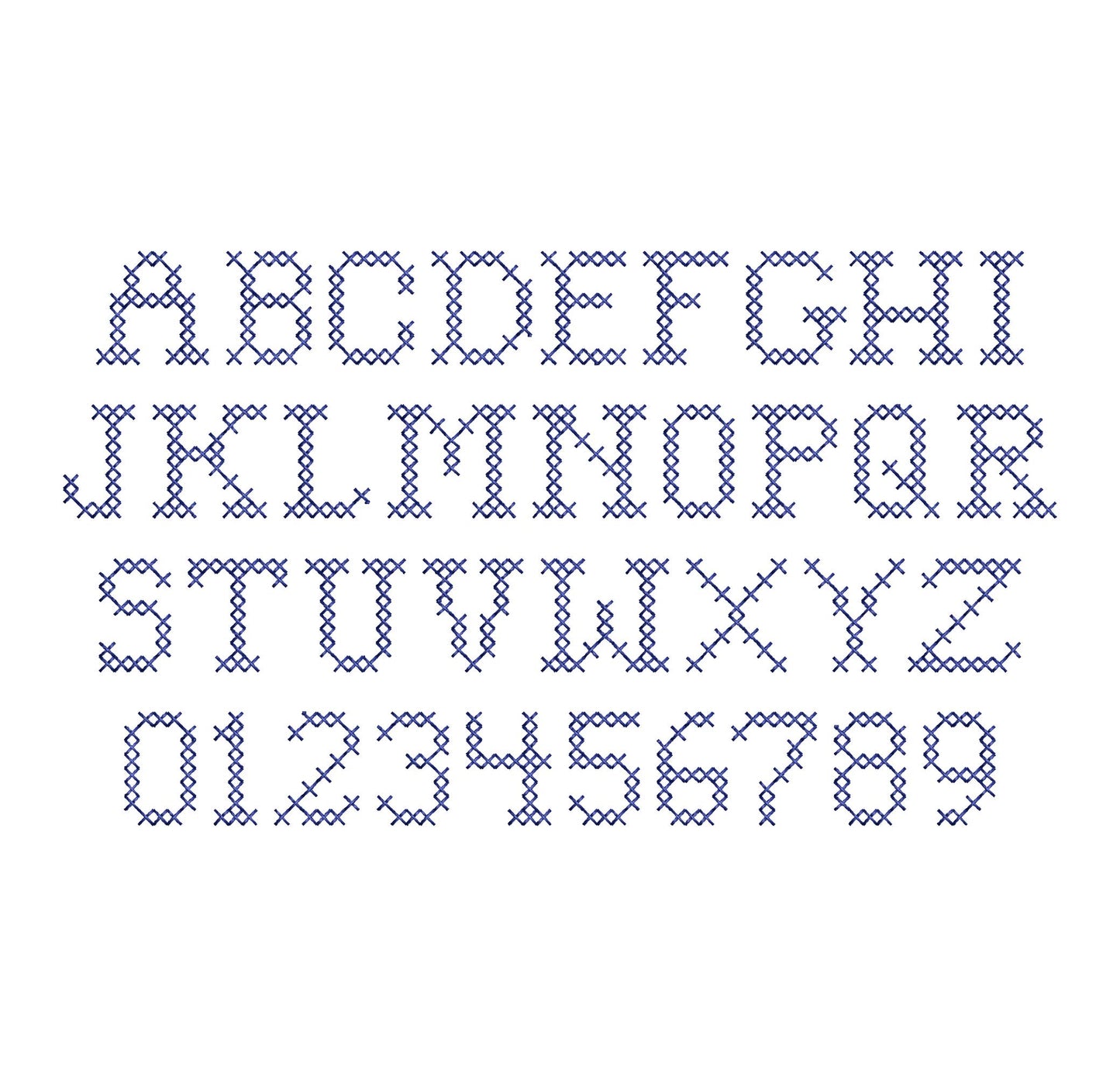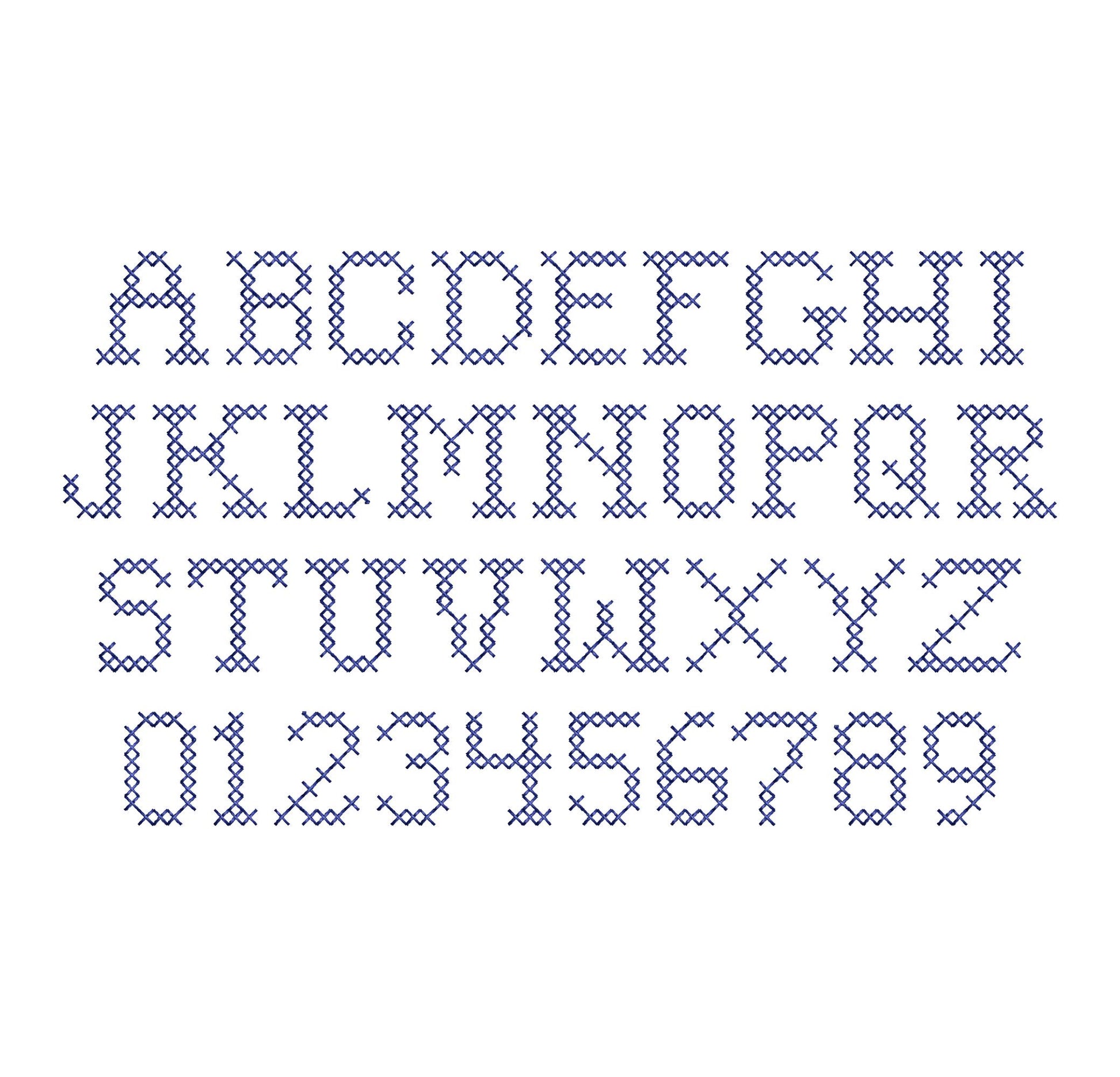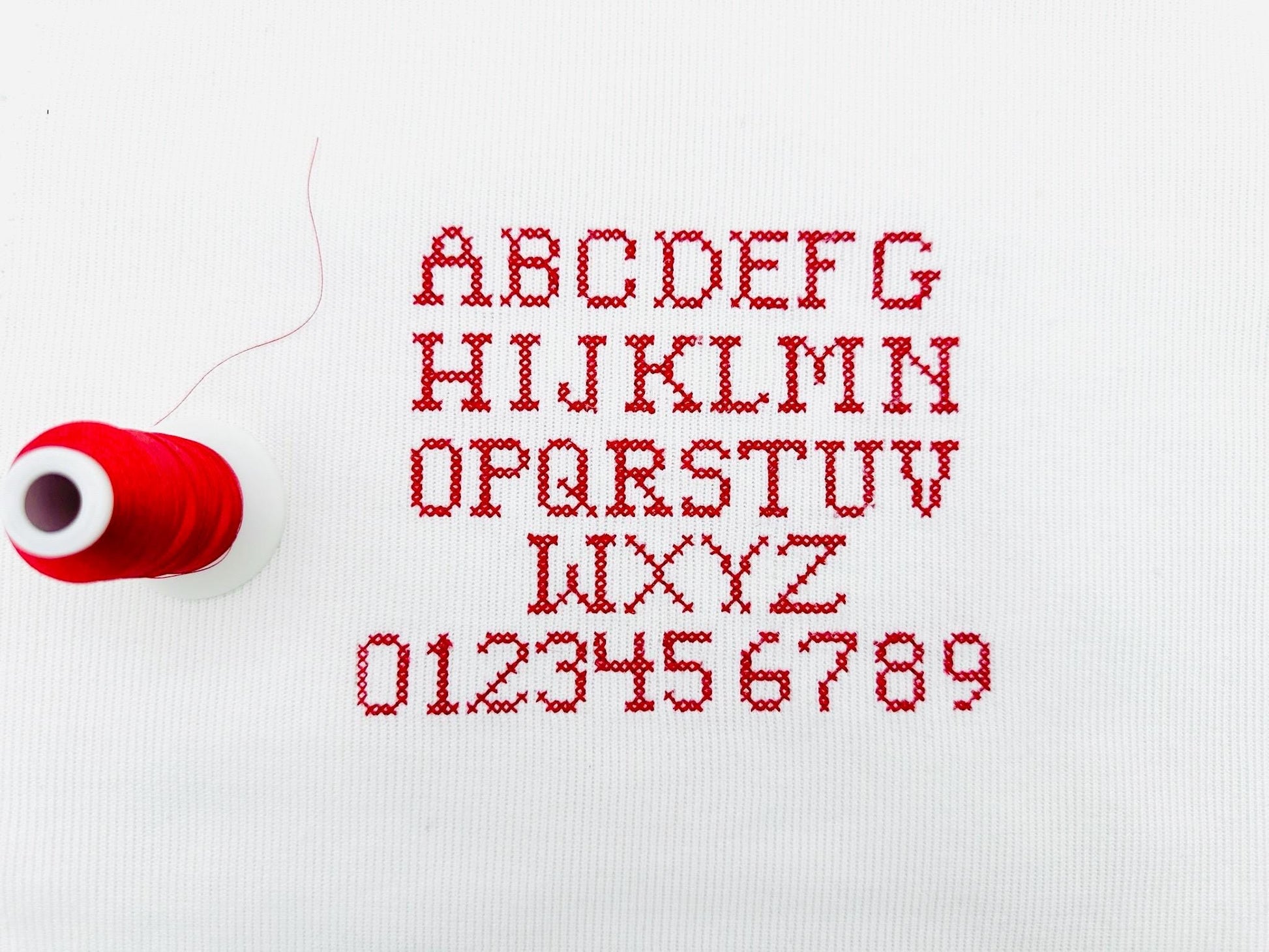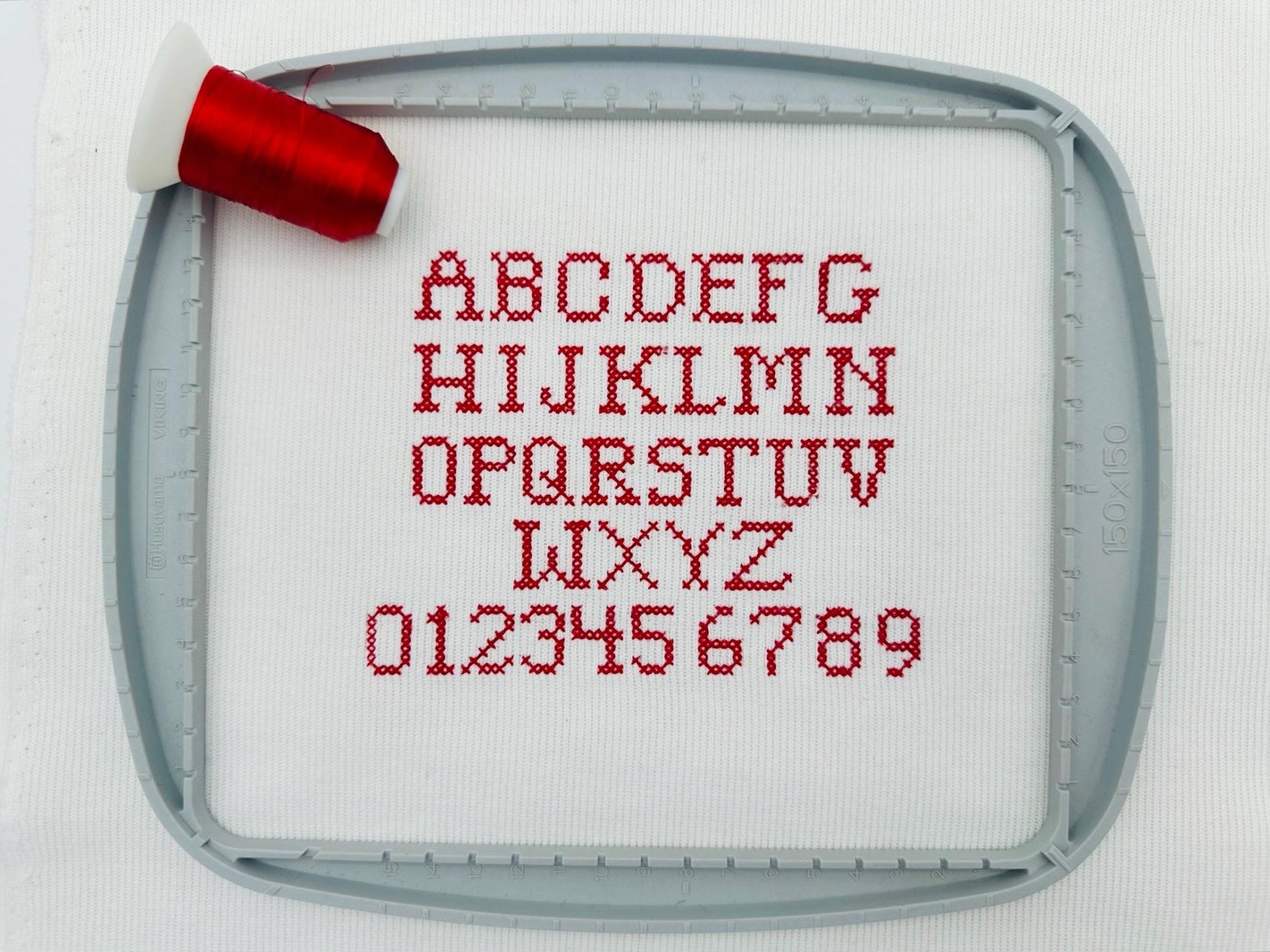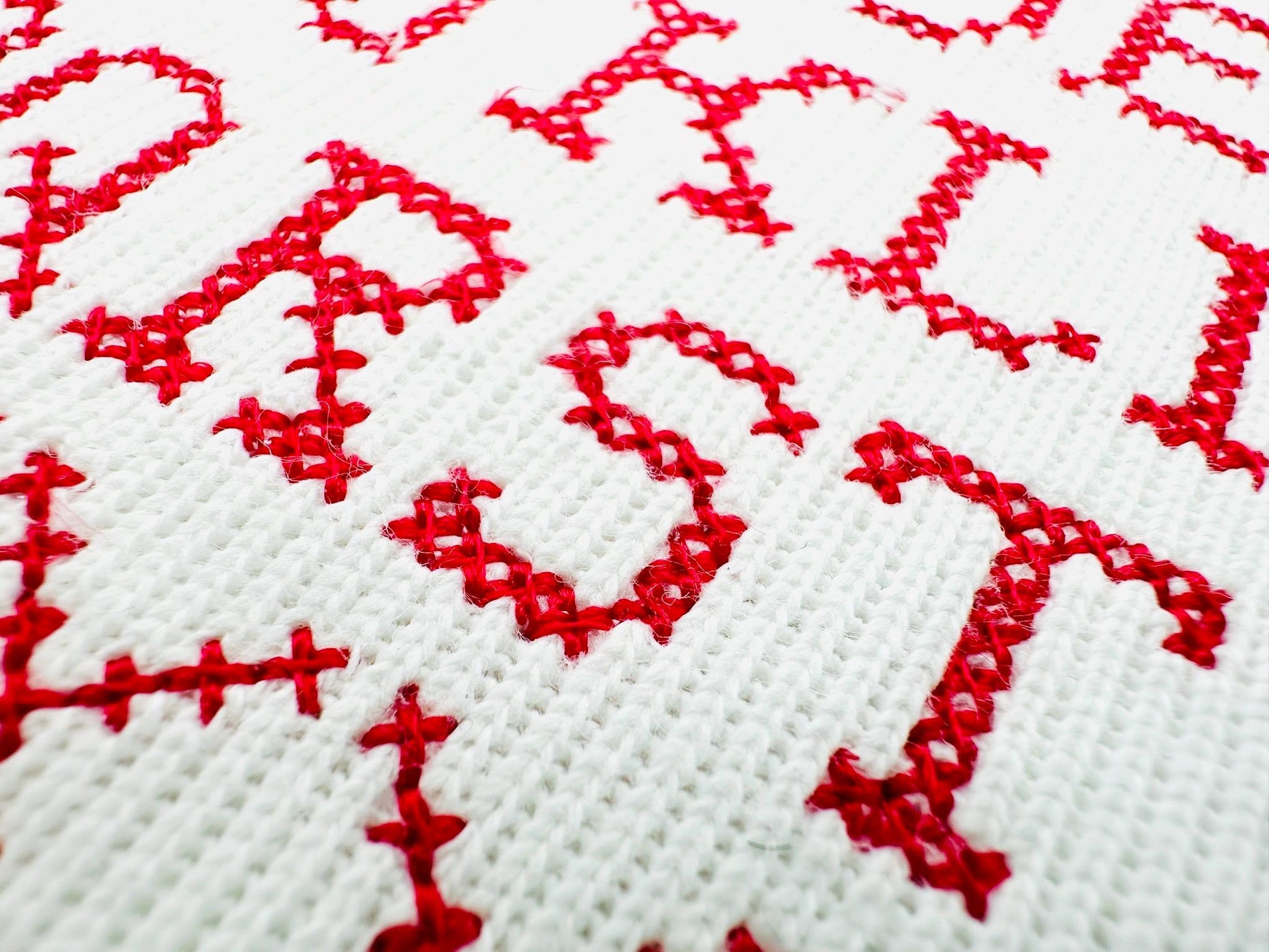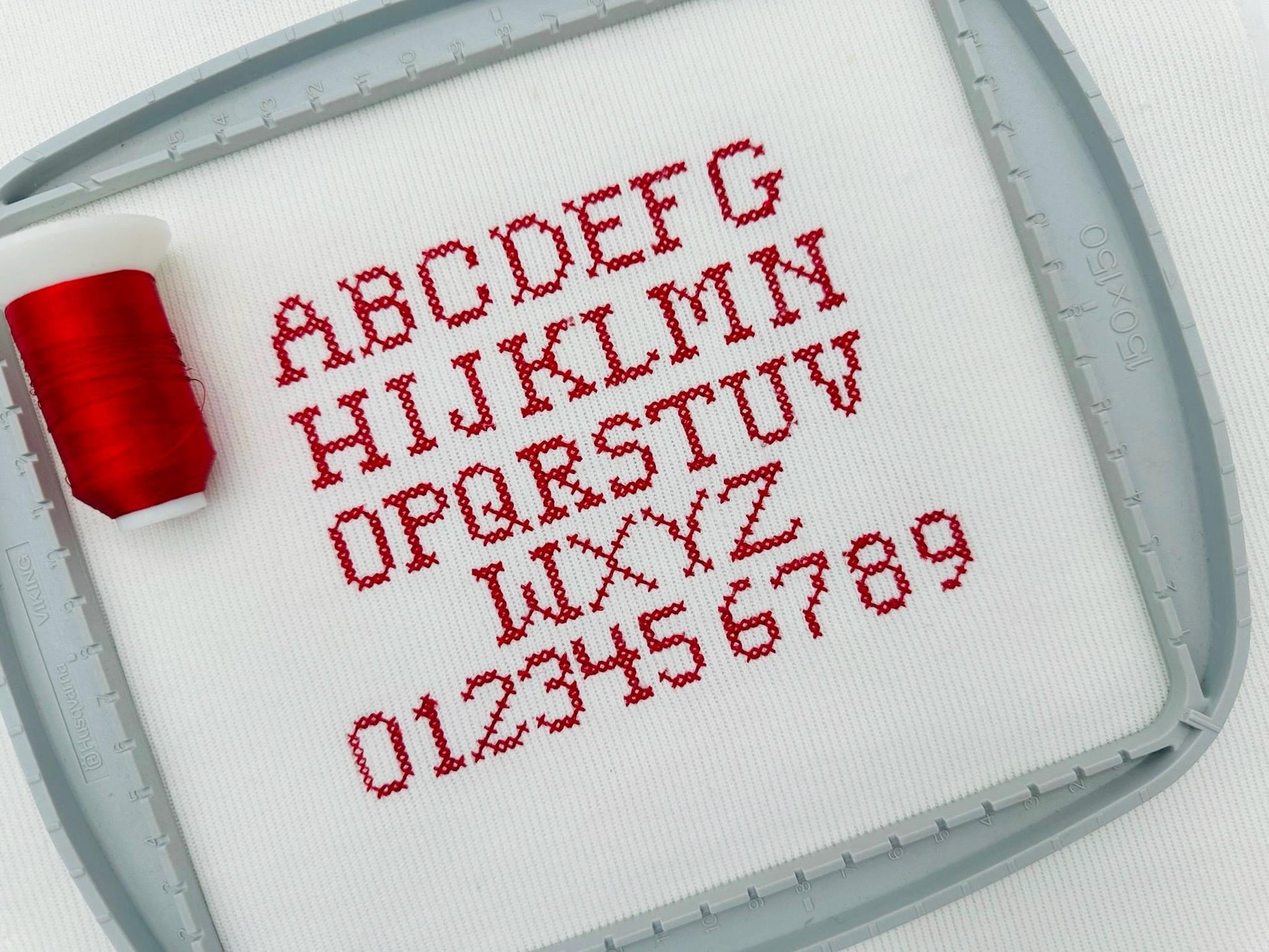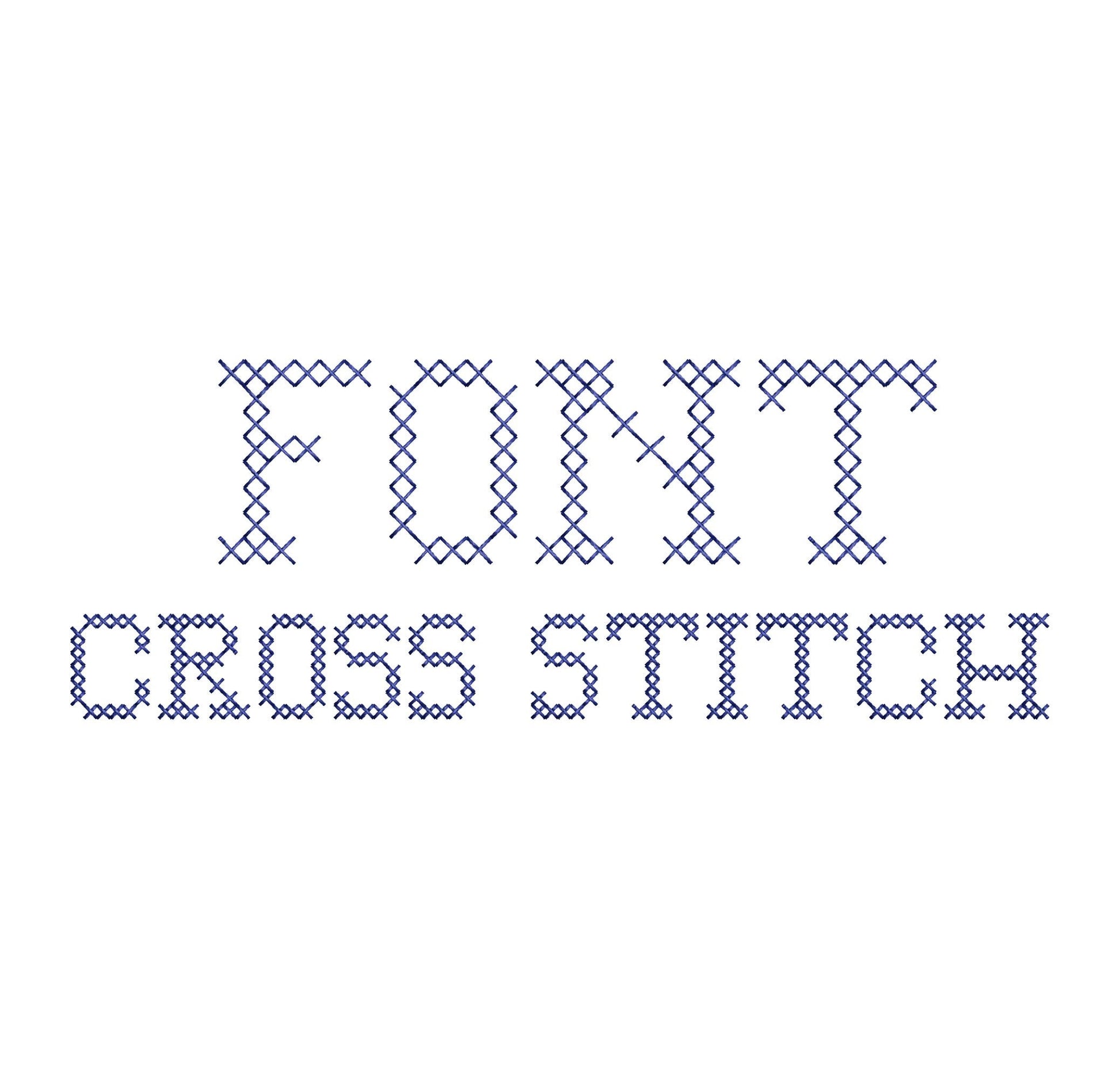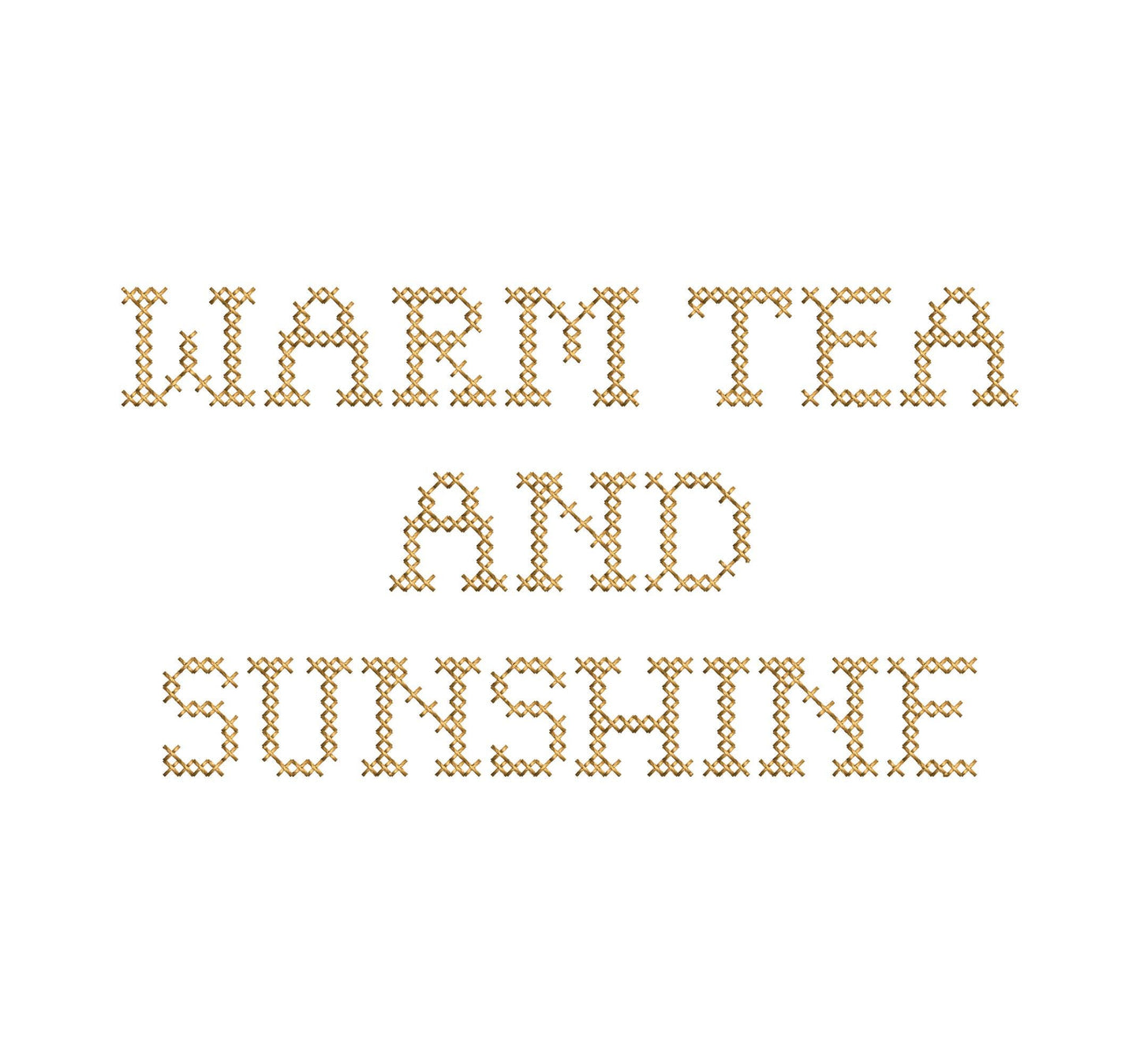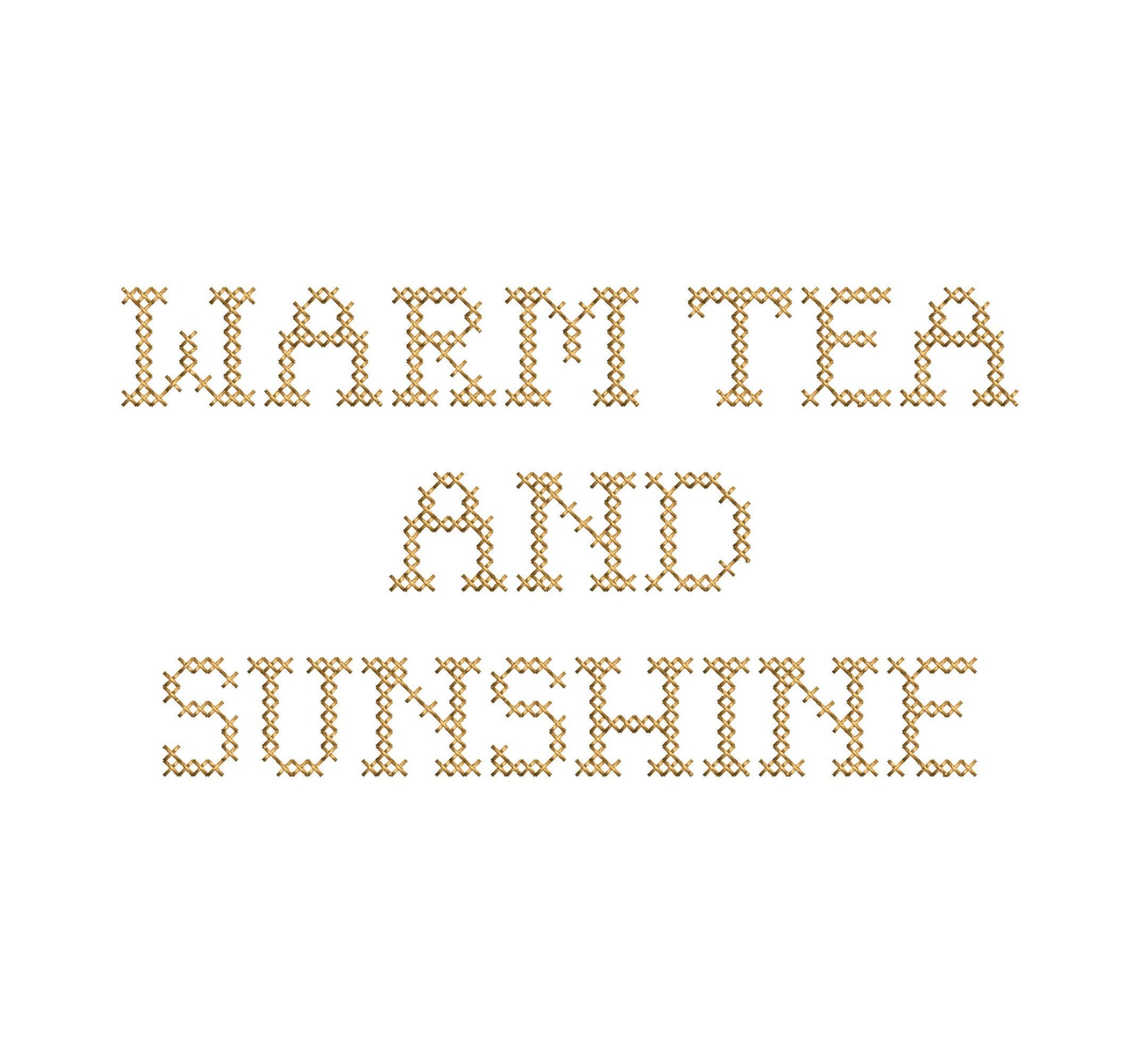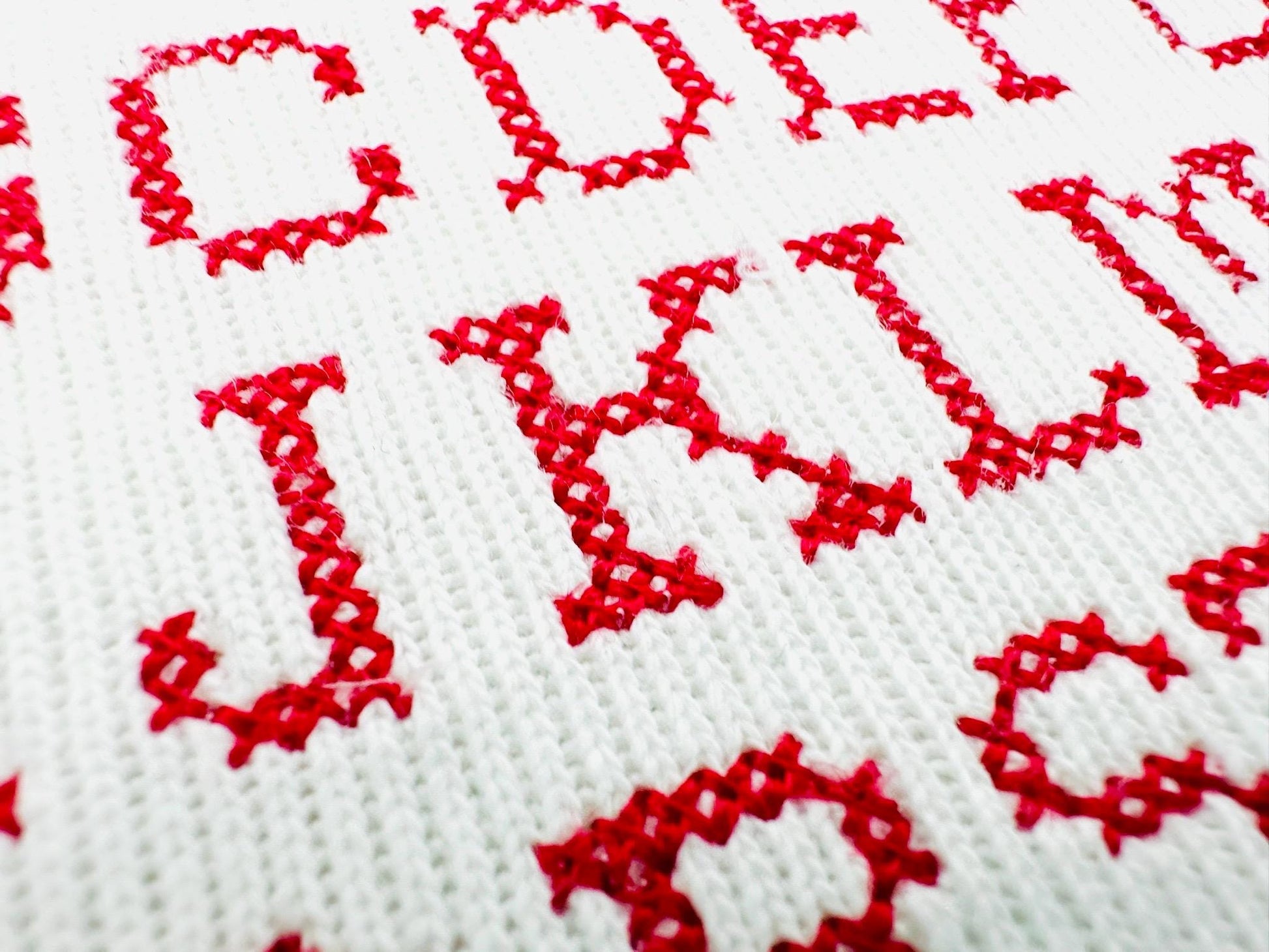
Cross Stitch Font
Included: Uppercase A-Z, Numbers 0-9
A classy cross stitch block font in tiny sizes. Charming for initials, small names and samplers on baby clothes and gifts.
The letters come in four mini sizes: 0.6, 0.8, 1 and 1.3 inches. Block letters built from cross stitches, like a cottage sampler. Includes uppercase letters A to Z and numbers 0 to 9.
• Cross stitch block font
• Uppercase A to Z, numbers 0 to 9